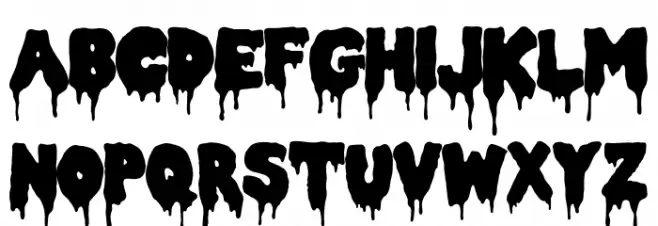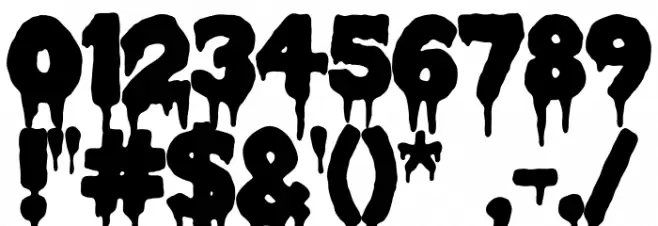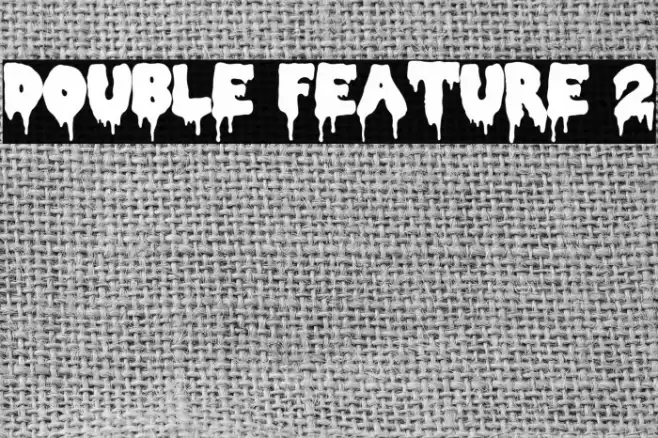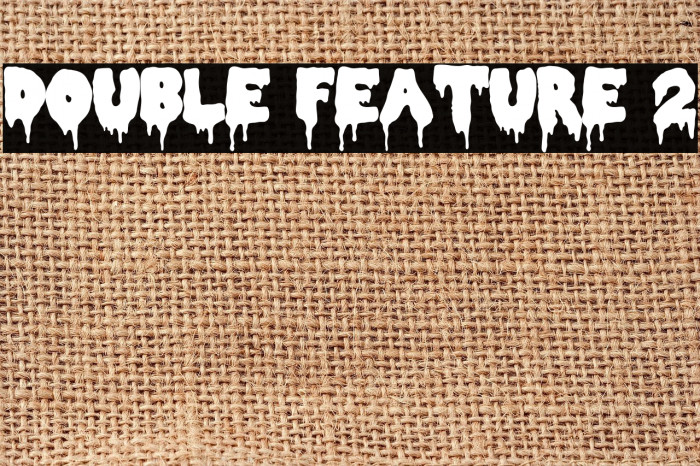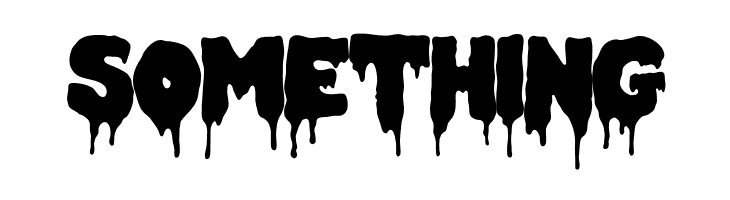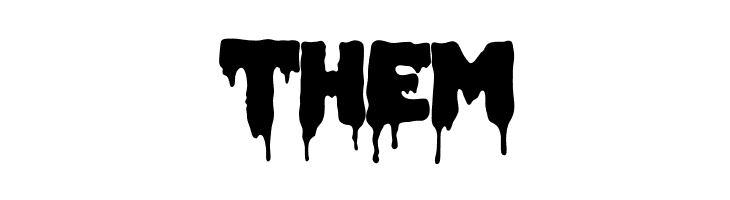
Double Feature 2 Font
Double Feature 2 Description
This font features a bold and dramatic style with a dripping effect reminiscent of melting or liquid forms. The characters are thick and substantial, creating a strong visual impact. The unique design gives it a horror or Halloween-themed aesthetic, making it ideal for projects that require a spooky or eerie vibe. The uppercase and lowercase letters maintain a consistent style, with numbers and special characters following the same dripping motif. This font is perfect for creative projects that aim to capture attention with its distinctive and eye-catching appearance.
A bold, dripping font with a spooky, horror-themed aesthetic.
- Proposed Projects: Ideal for Halloween posters, horror movie titles, themed event invitations, and graphic designs that require a dramatic and eerie touch.
- Use Case: Headlines, Posters, Logos